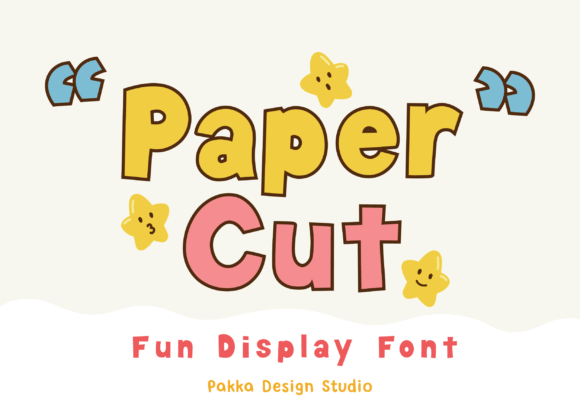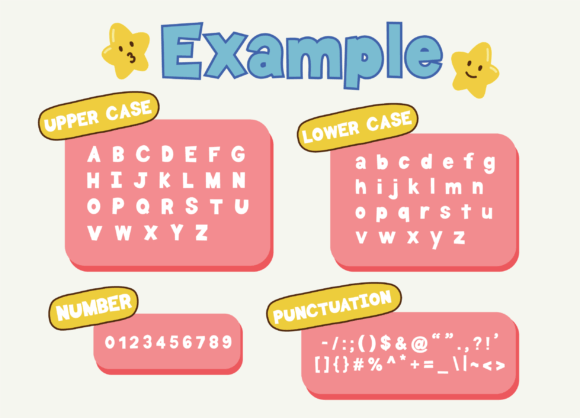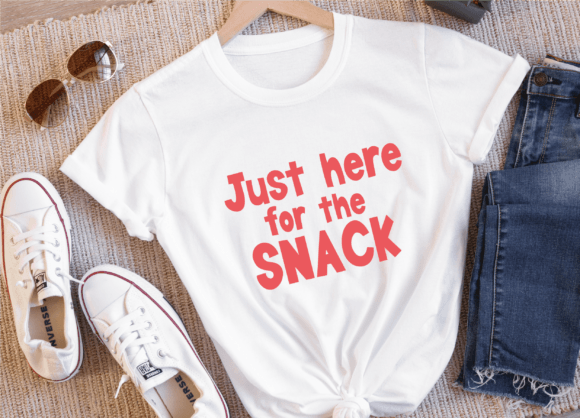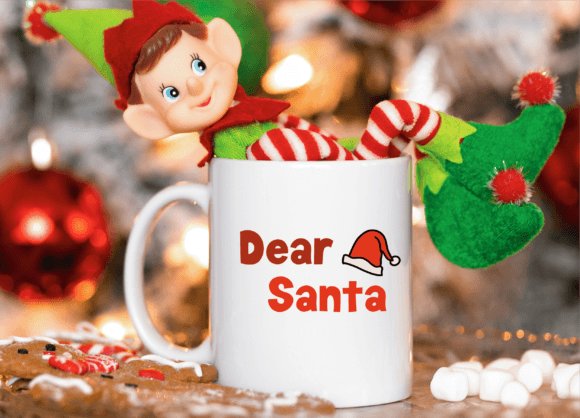
Paper Cut Font
About the Paper Cut Font
Welcome to the world of Paper Cut Font, a typeface that will inspire your next great project. The “Paper Cut” display font is a whimsical world of letters. Each letter is a playful piece, ready to be arranged like a craft project. This font captures the essence of creative adventures, reminiscent of making paper dolls and crafting colorful scenes. With its cutting paper-inspired appearance, this font adds a touch of crafty authenticity to your design. Making it a perfect choice for projects related to kids, DIY, or anything that brings the joy of crafting to life
Paper Cut excels in headlines, short slogans, and playful branding projects where its whimsical nature shines. It’s ideal for children’s books, craft-related businesses, or packaging for playful products. Avoid using it for body text or long paragraphs; its distinctive style is too distracting for extended reading.
The font’s personality is undeniably playful and friendly. To balance this, pair it with a clean sans-serif like Open Sans for body copy or a more structured serif such as Merriweather for a sophisticated contrast. A simple geometric sans-serif could also provide a modern counterpoint.
Consider using Paper Cut sparingly as an accent to avoid visual overload. Its unique character is best deployed strategically to emphasize key elements and maintain visual interest.